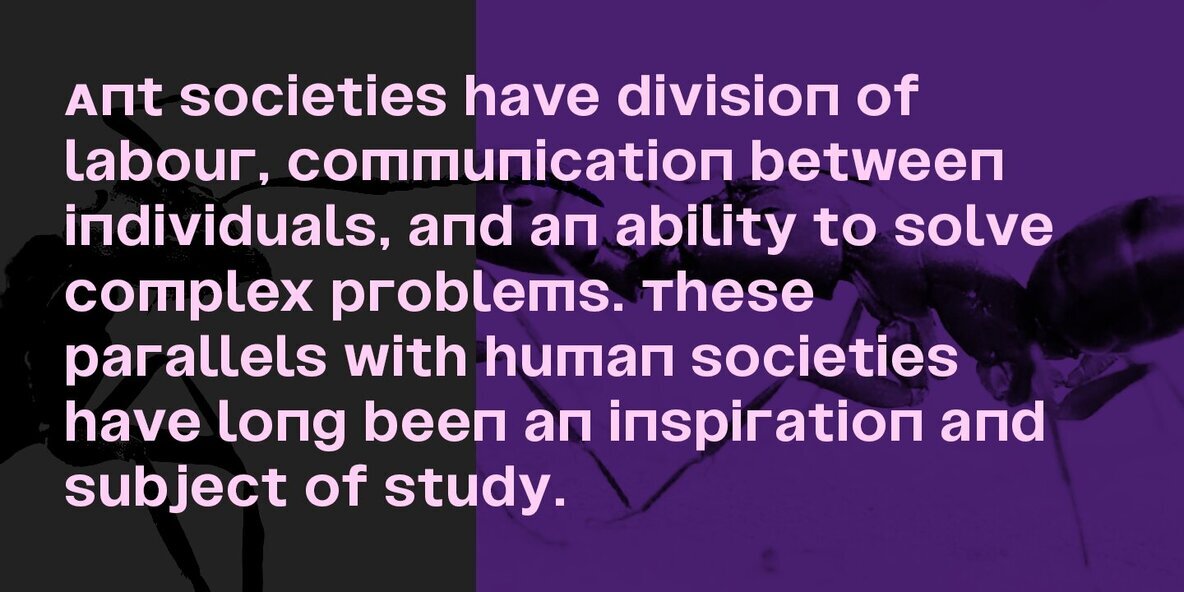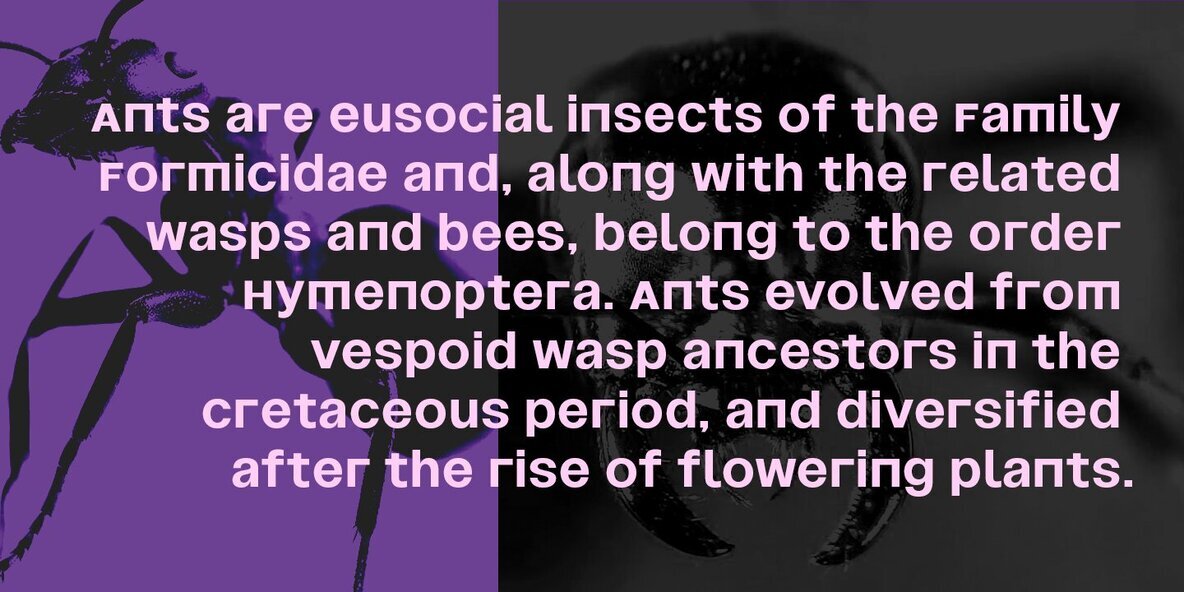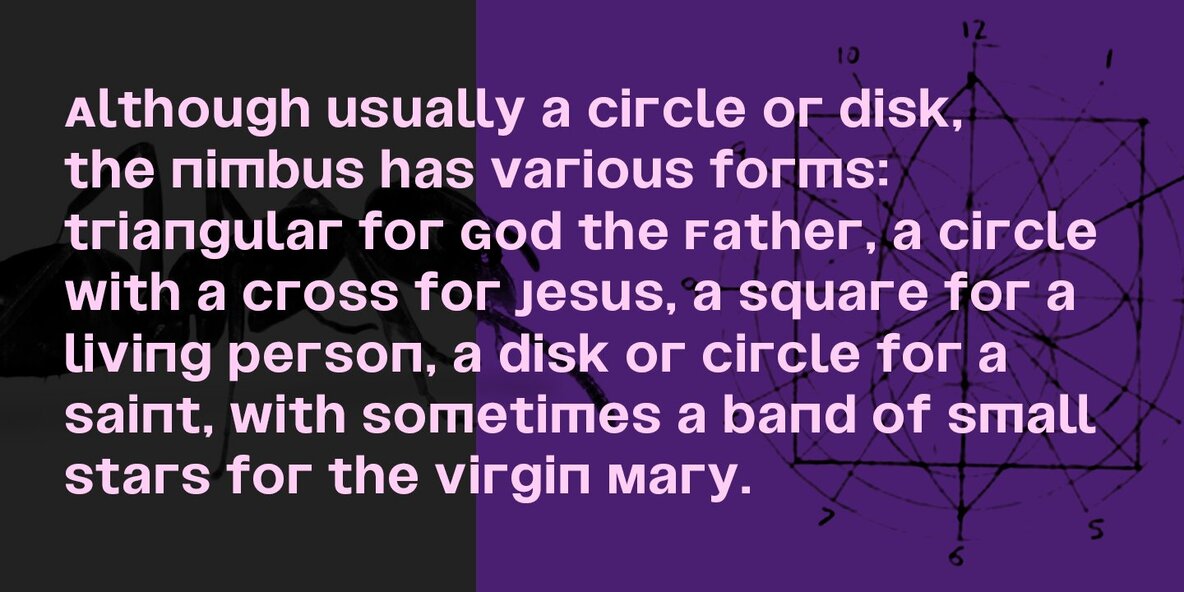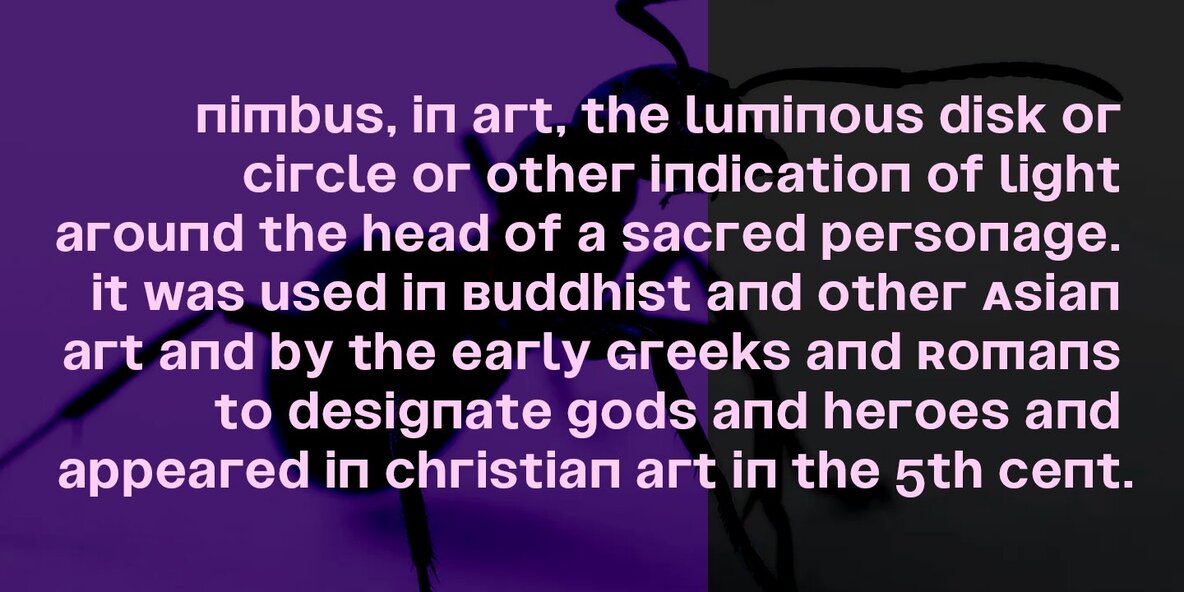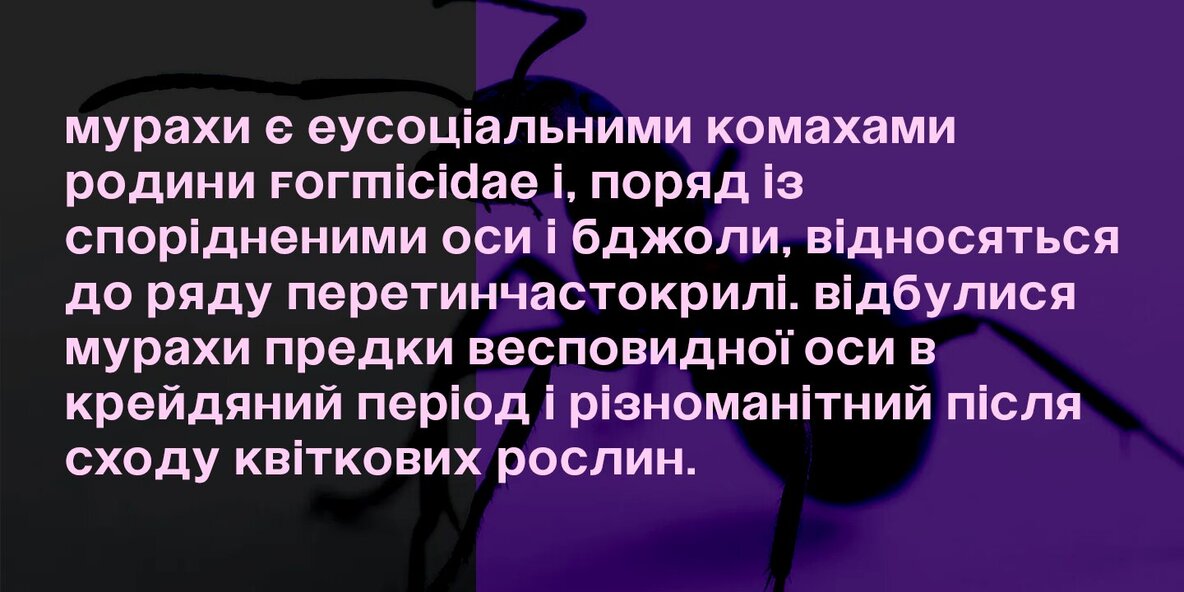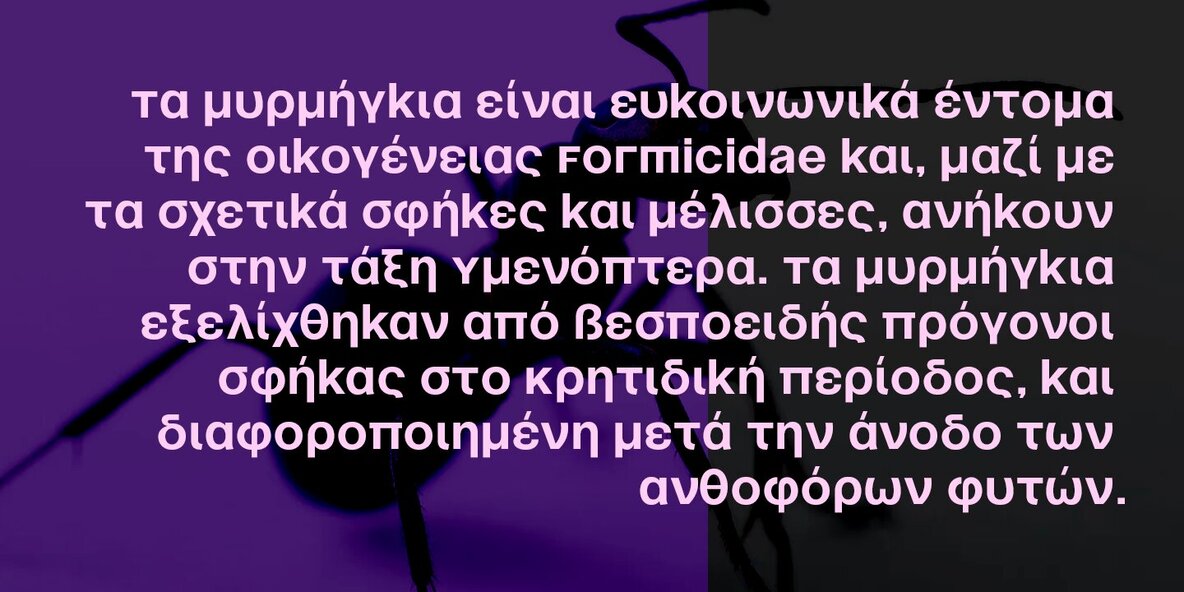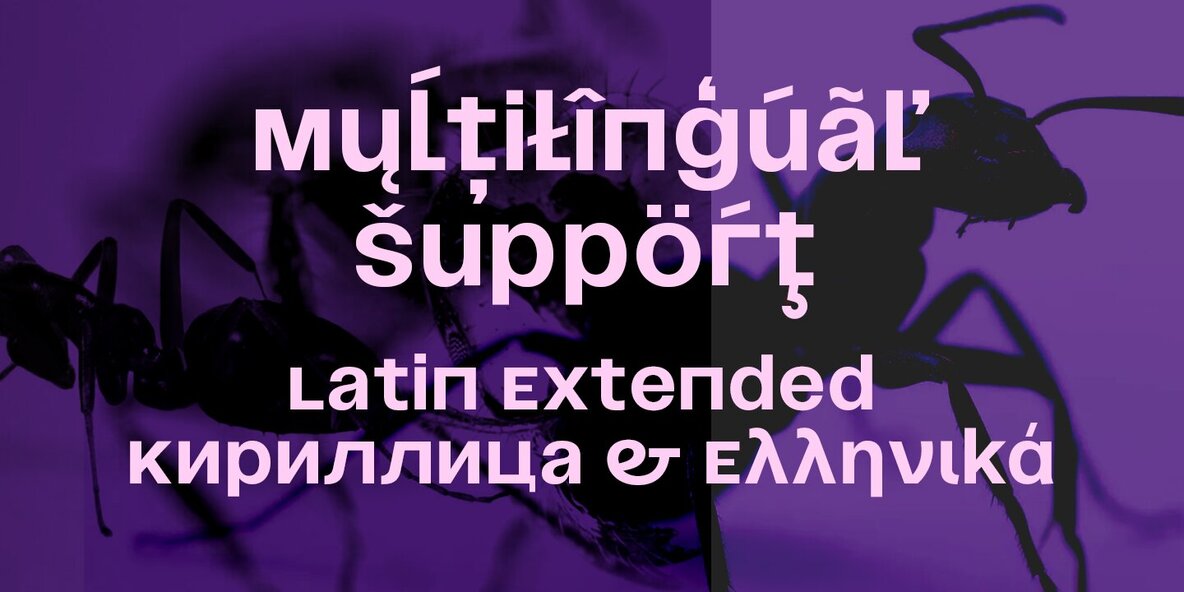
Nimbusant Bresslo Font
Nimbusant Bresslo Regular
Nimbussant Bresslo is a typeface that can be used for different purposes such as poster design, logo making and headings. It has an unusual look with lowercase alternates in small caps creating more boldness to it while some of the letters have very sharp bodies but also stylistic variations so you may find what's best suited for your needs!